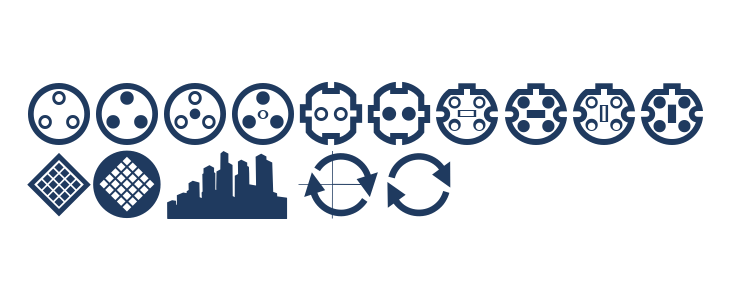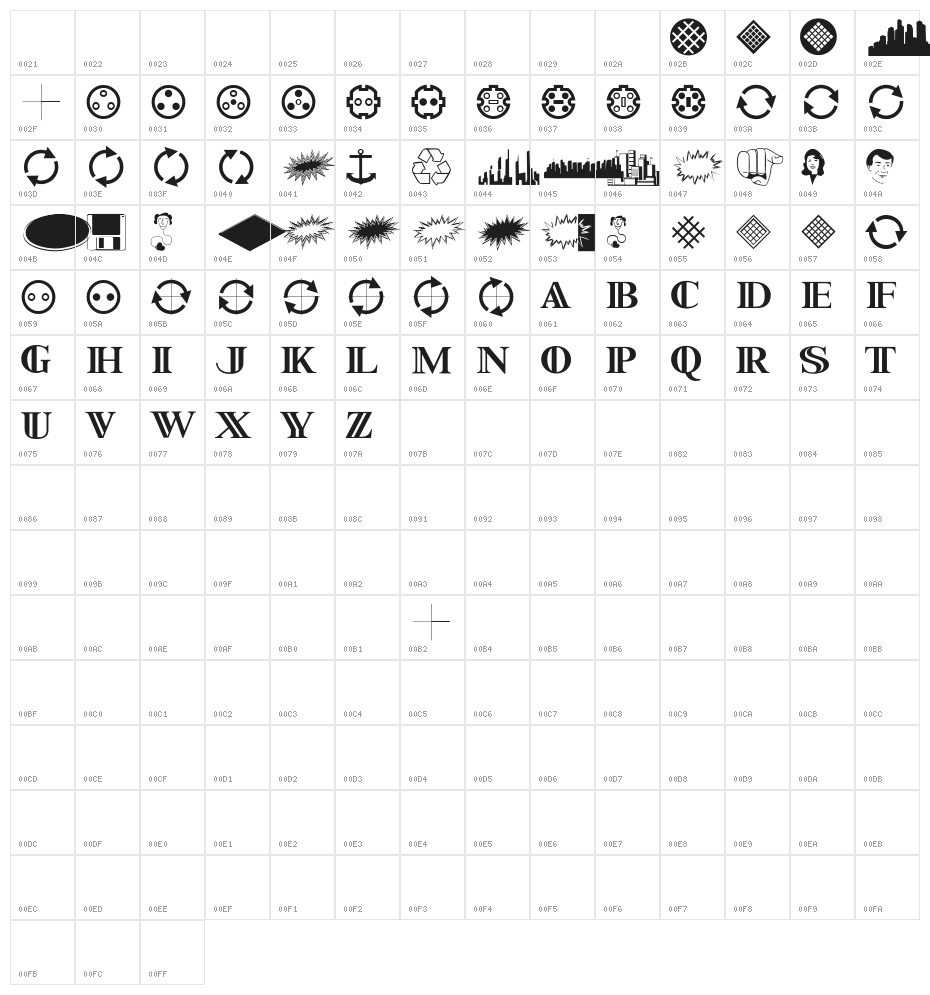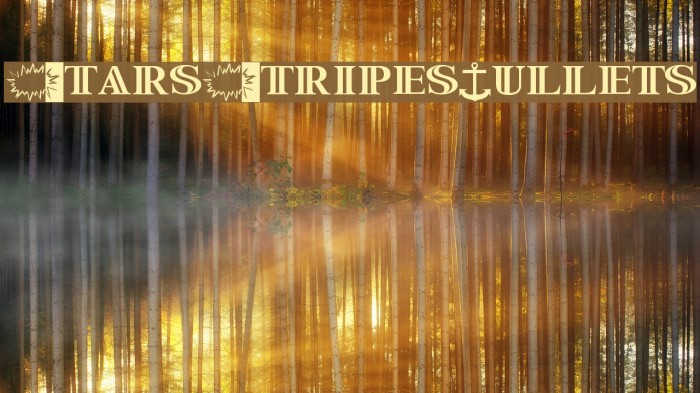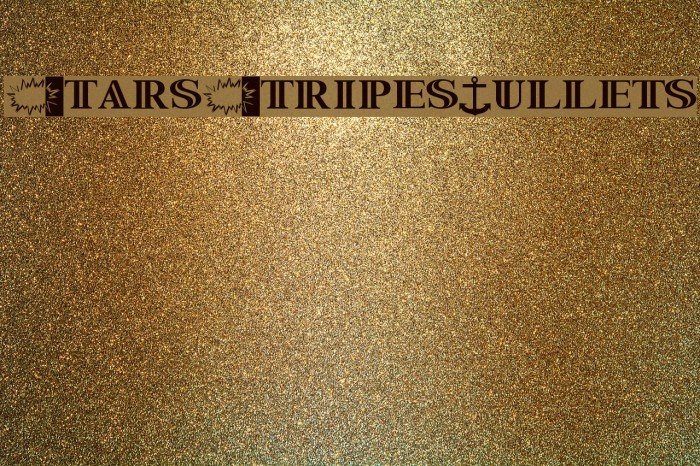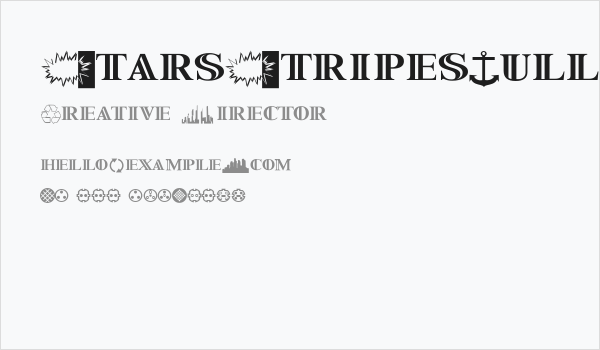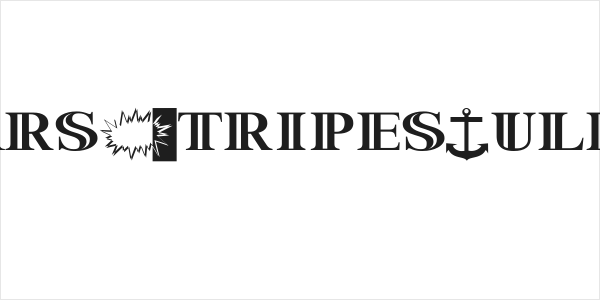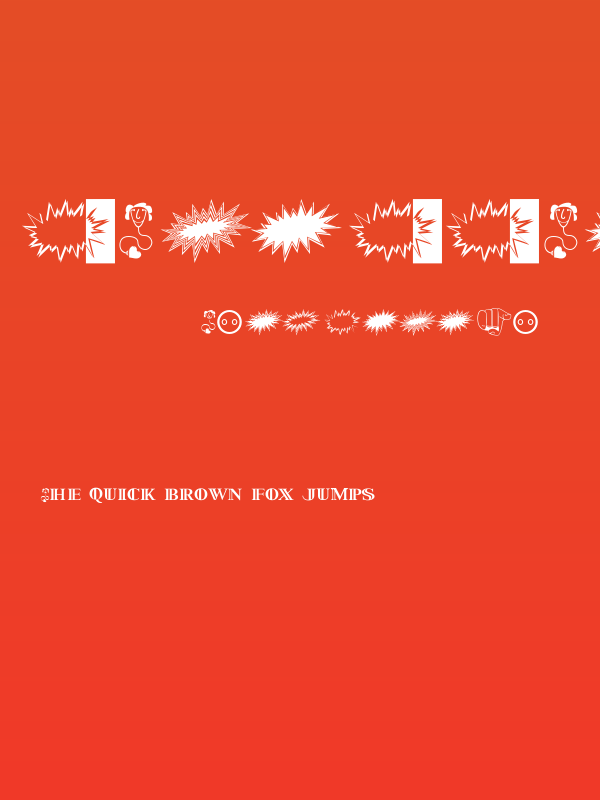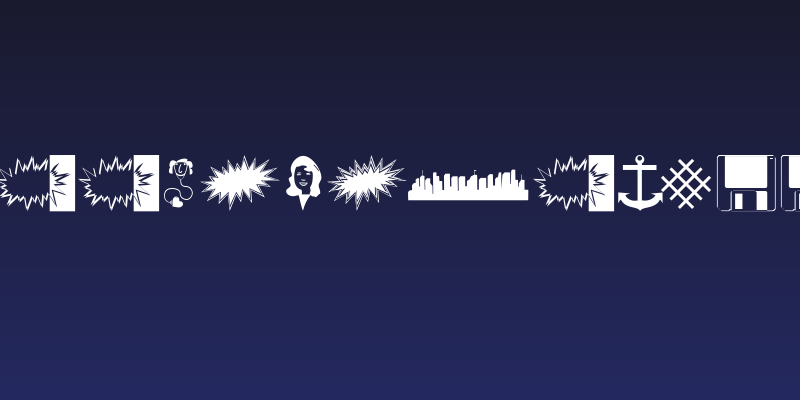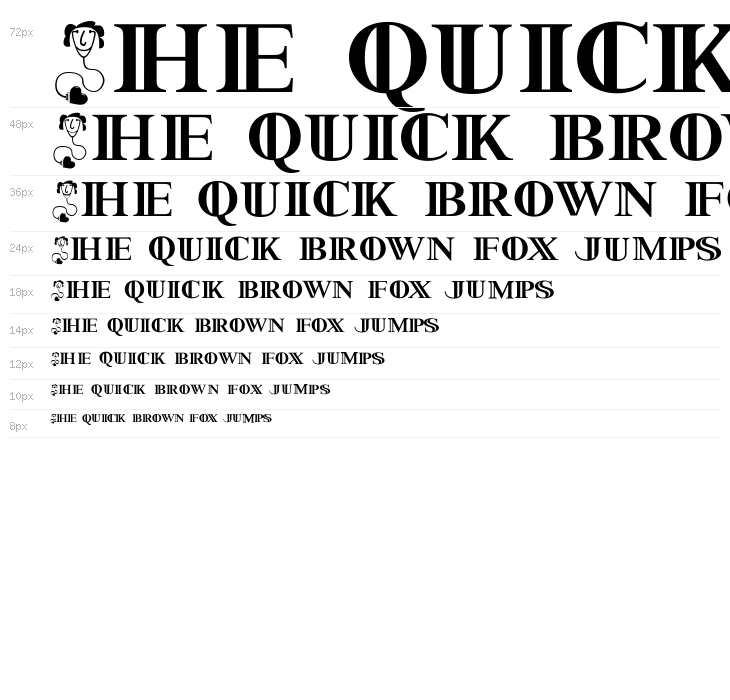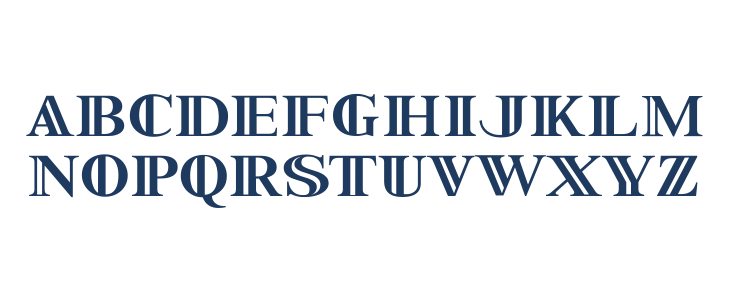
StarsStripesBullets Font
StarsStripesBullets Description
This font features a bold and striking design, characterized by its strong, thick strokes and high contrast between thick and thin lines. The uppercase letters are crafted with a classic serif style, giving them a timeless and authoritative appearance. The serifs are pronounced, adding to the font's elegance and readability. The overall style is reminiscent of traditional serif fonts but with a modern twist, making it suitable for a variety of applications. The characters are evenly spaced, providing a balanced and harmonious look. This font is ideal for projects that require a touch of sophistication and boldness.
| Overall Style | Classic |
| Proposed Projects | Ideal for headlines, branding, editorial design, and formal invitations. |